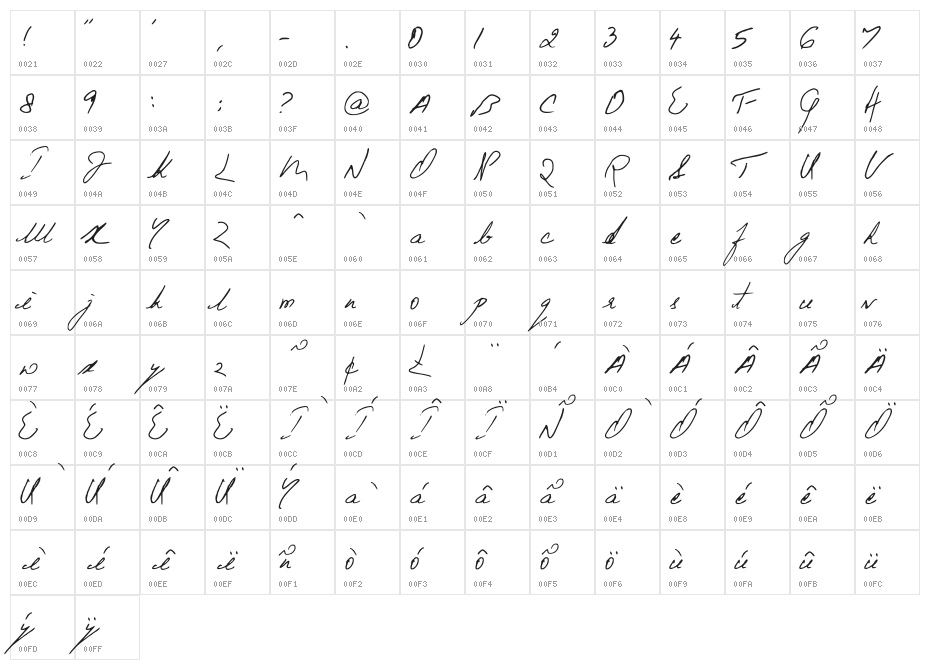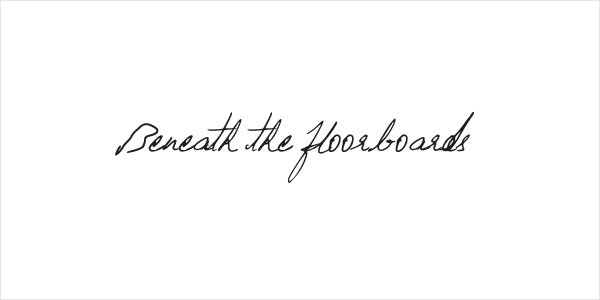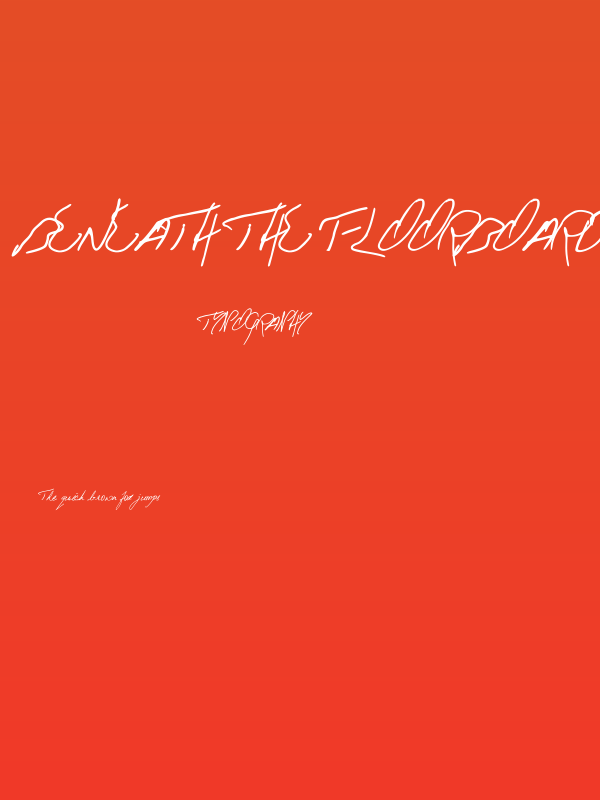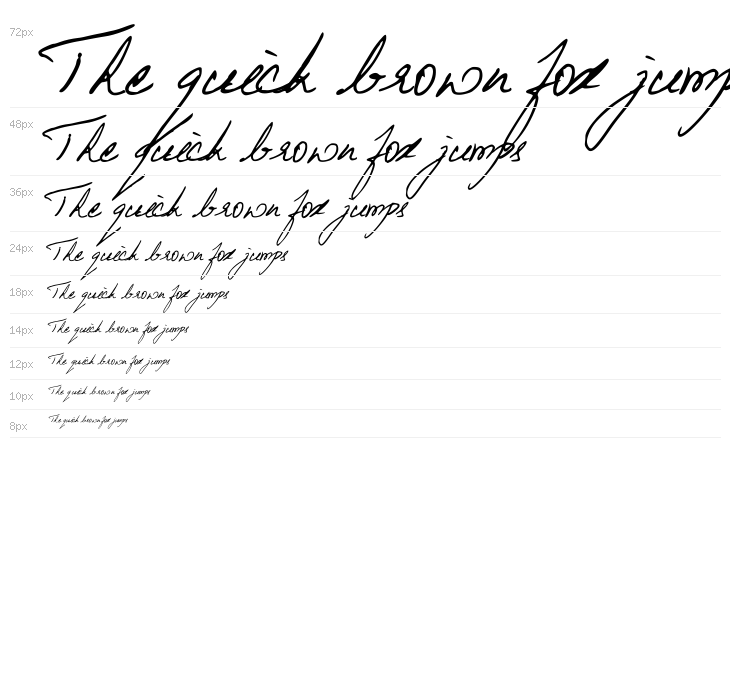
Beneath the floorboards Font
Beneath the floorboards Description
This font exhibits a dynamic and expressive handwritten style, characterized by its fluid and cursive letterforms. The uppercase letters are bold and sweeping, with a noticeable slant that adds a sense of motion and elegance. The lowercase letters maintain the same fluidity, with some letters connecting seamlessly to others, enhancing the script-like appearance. The numerals and special characters follow the same stylistic cues, ensuring consistency throughout. The overall impression is one of spontaneity and personal touch, making it ideal for projects that require a human element or an artistic flair.
| Use Case | Logos, Invitations, Artistic Branding |
| Proposed Projects | Ideal for personal invitations, artistic branding, or creative projects that benefit from a human touch. |